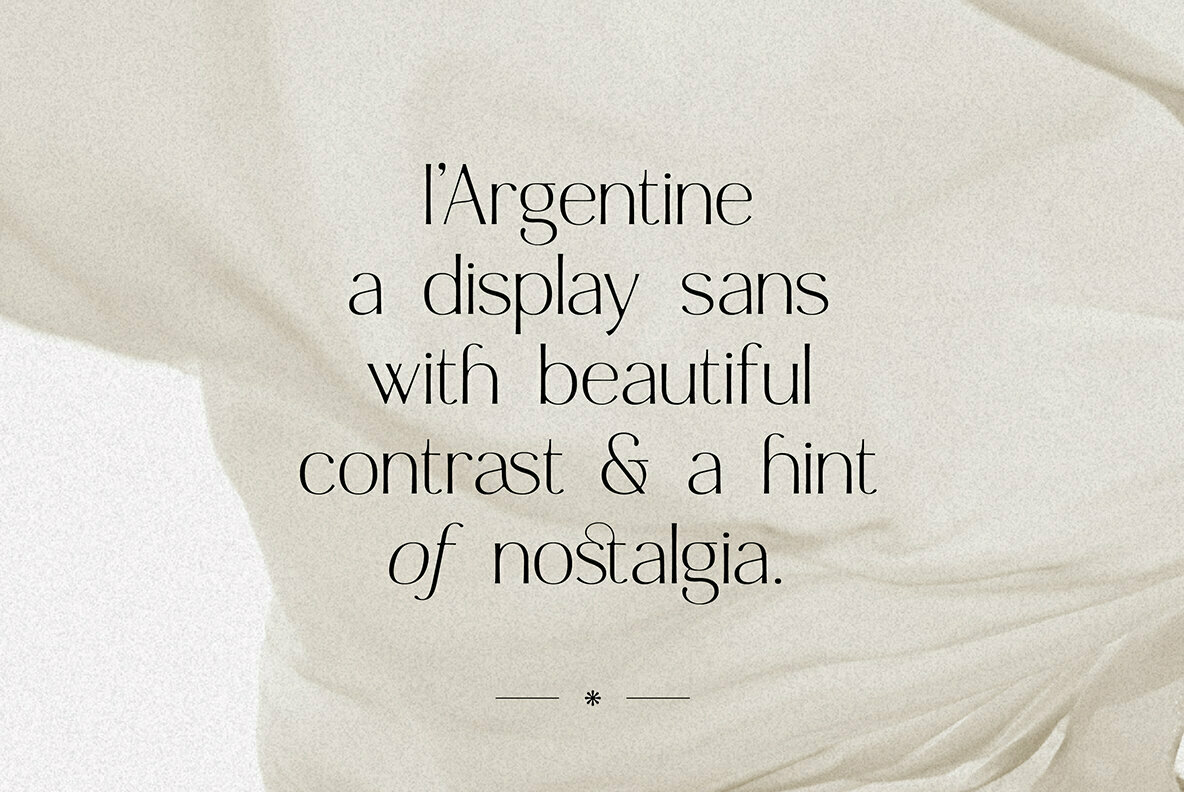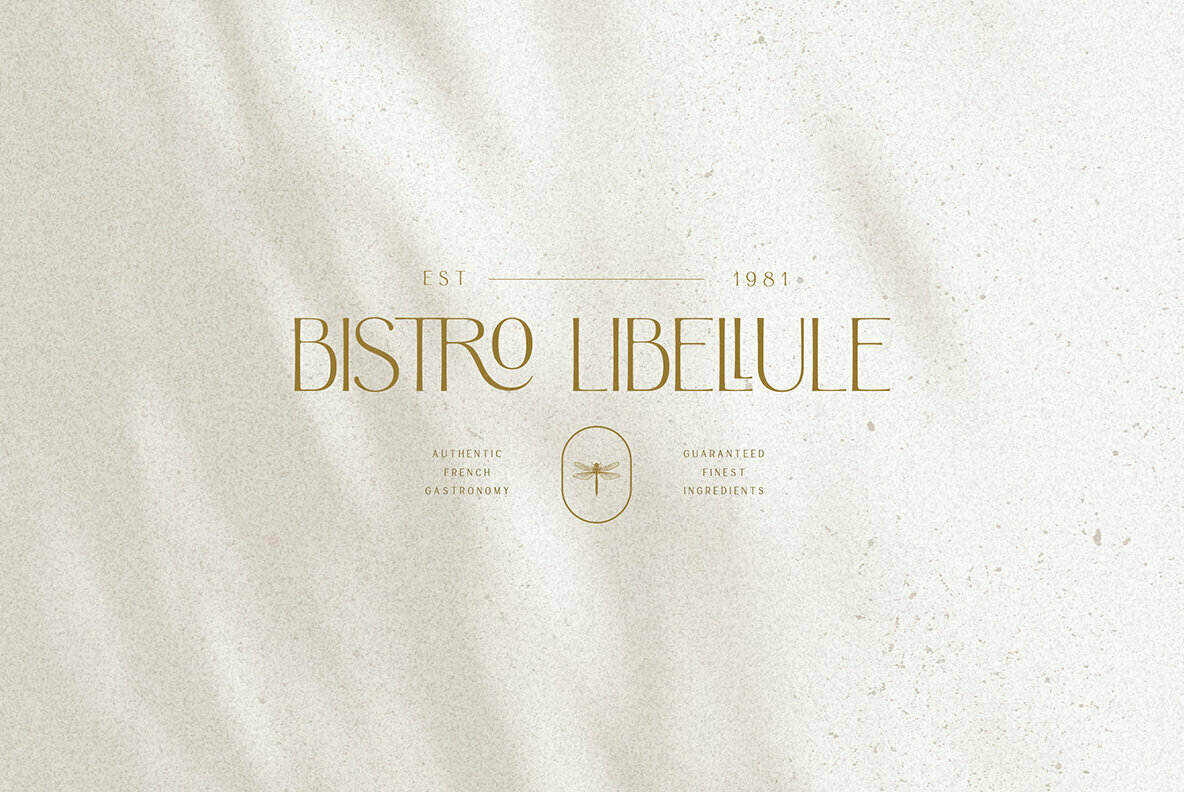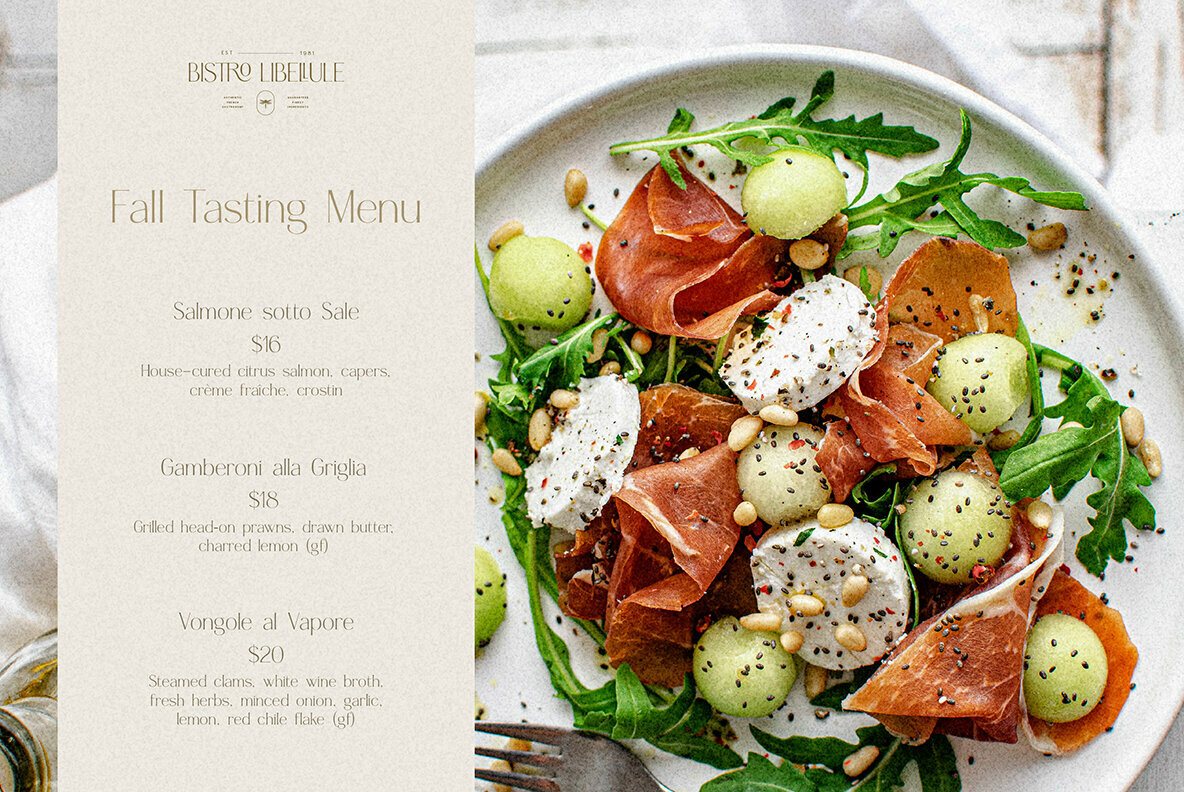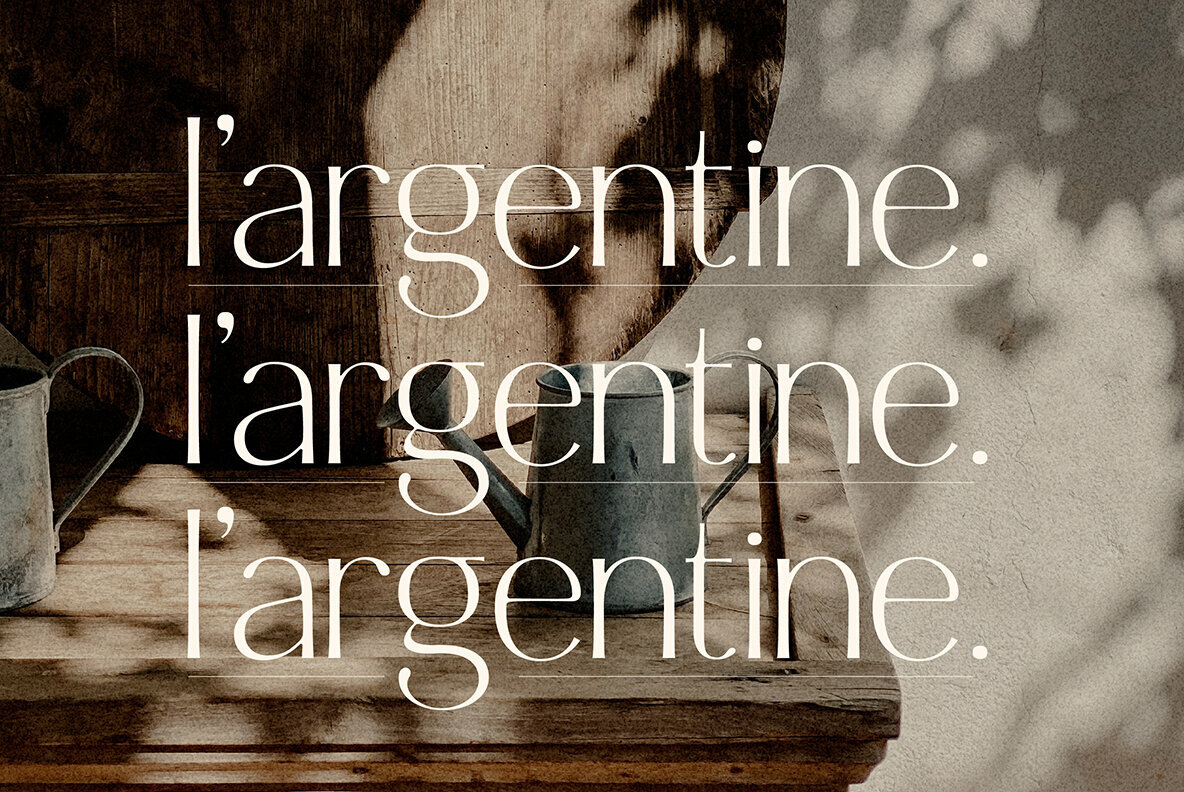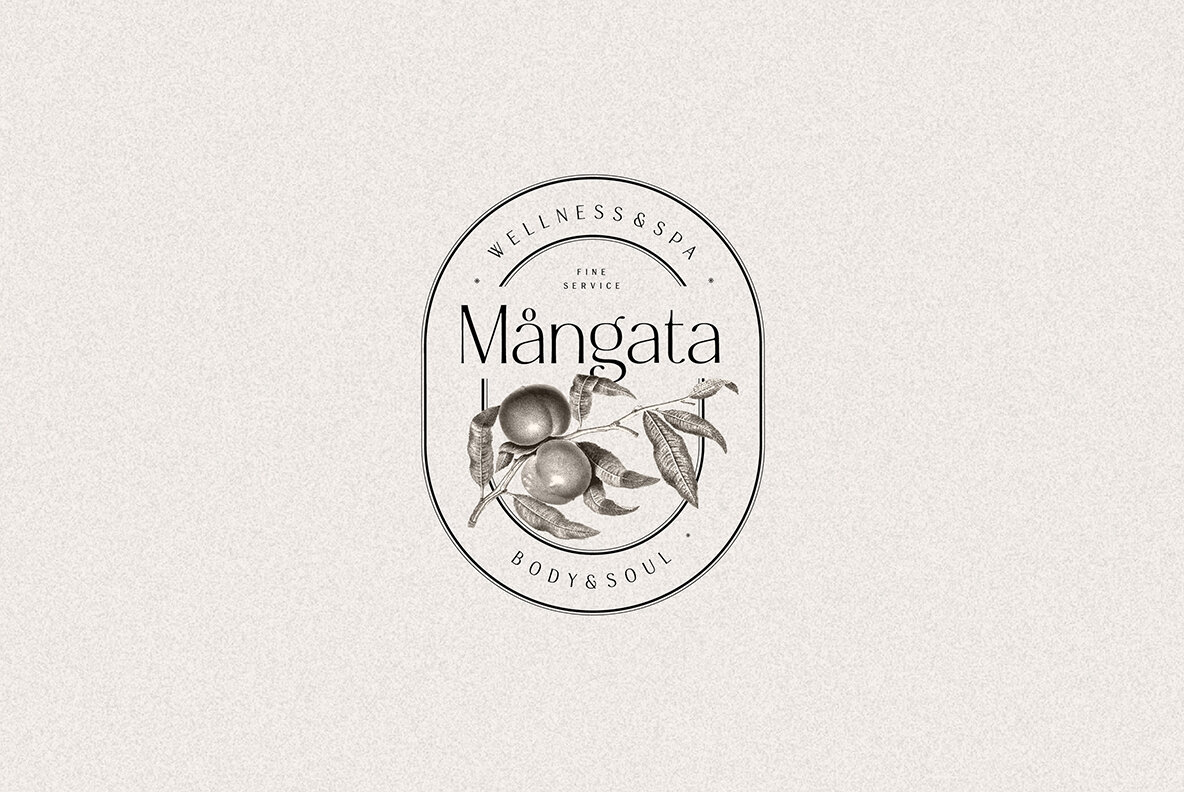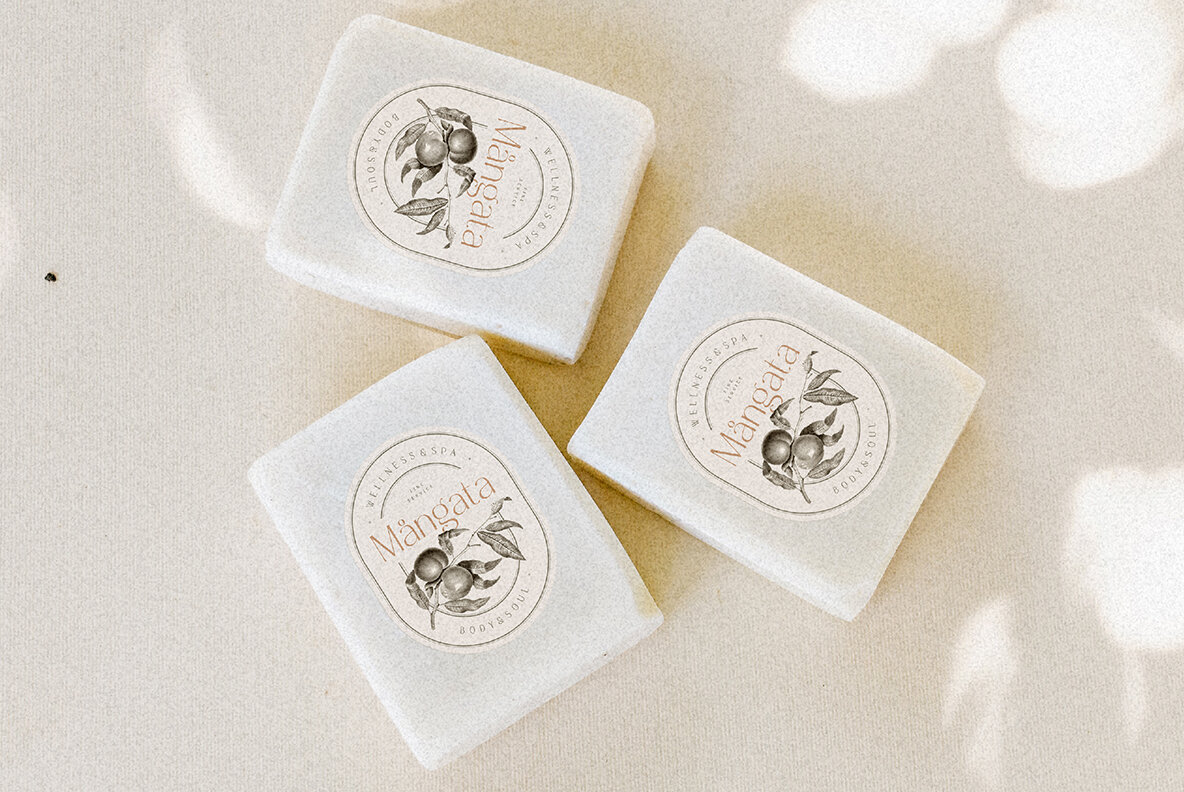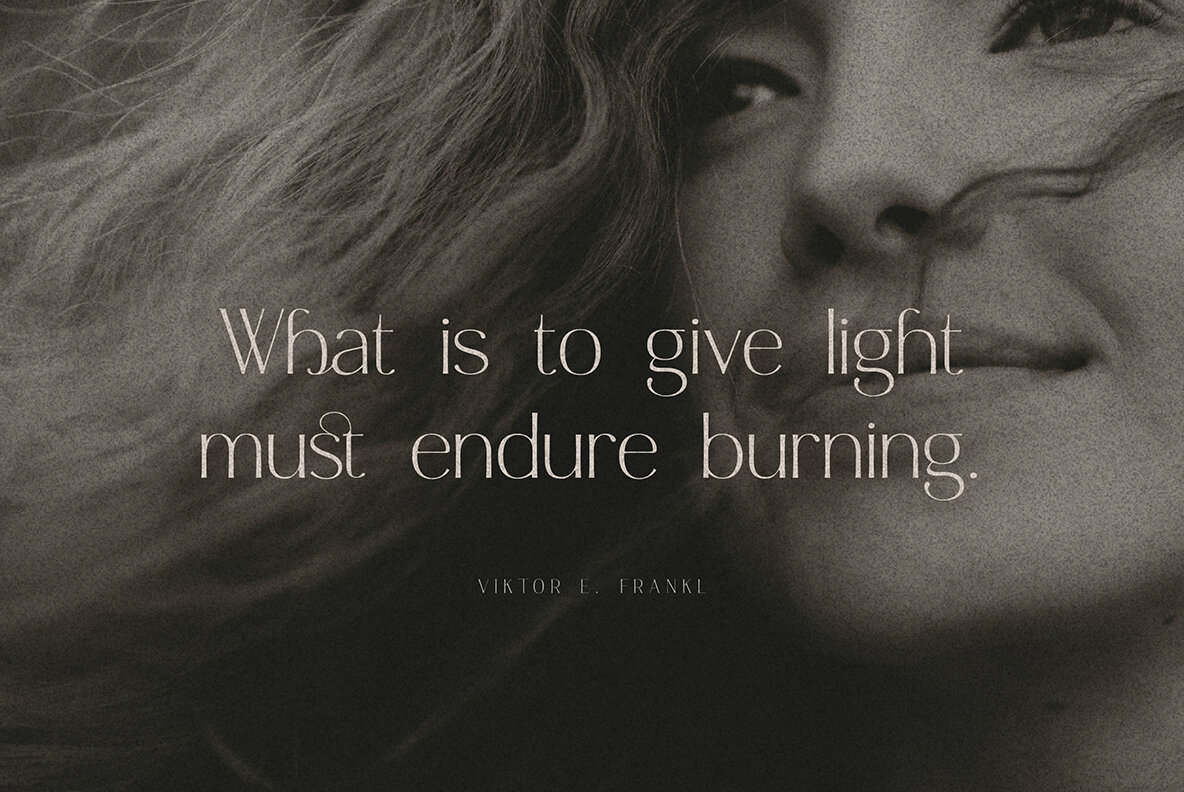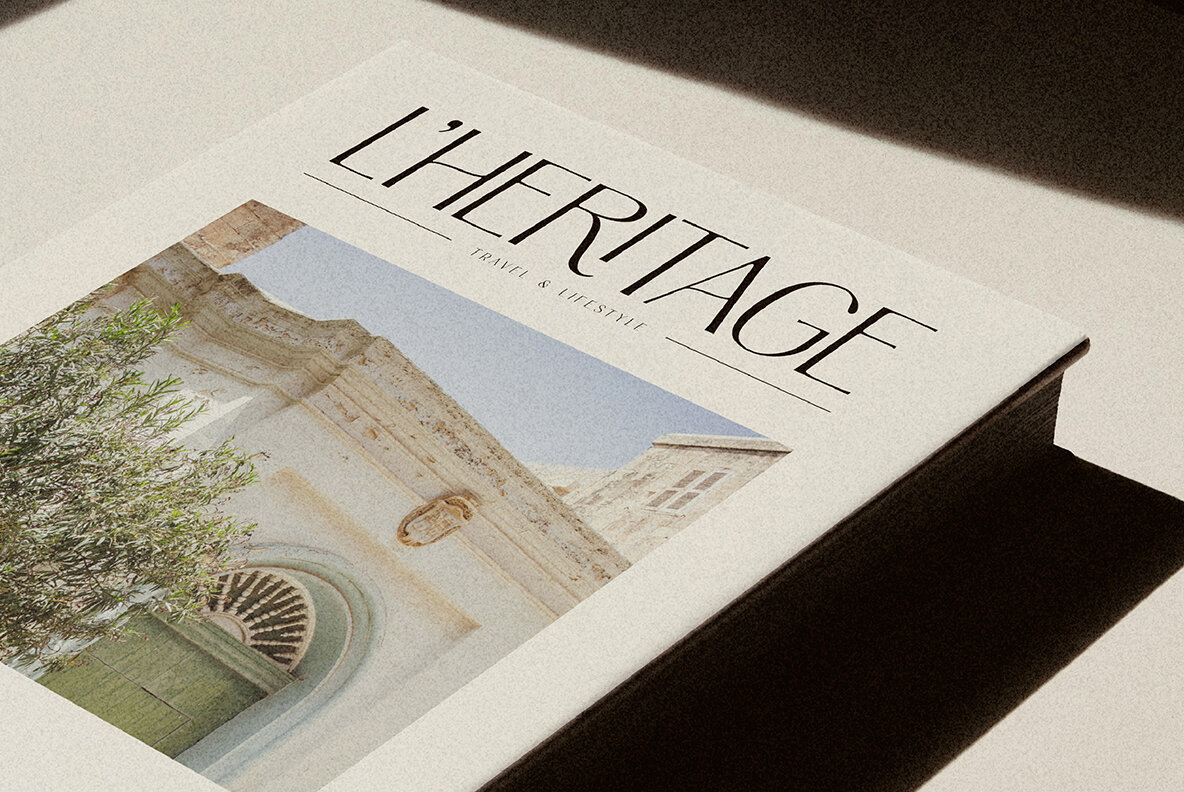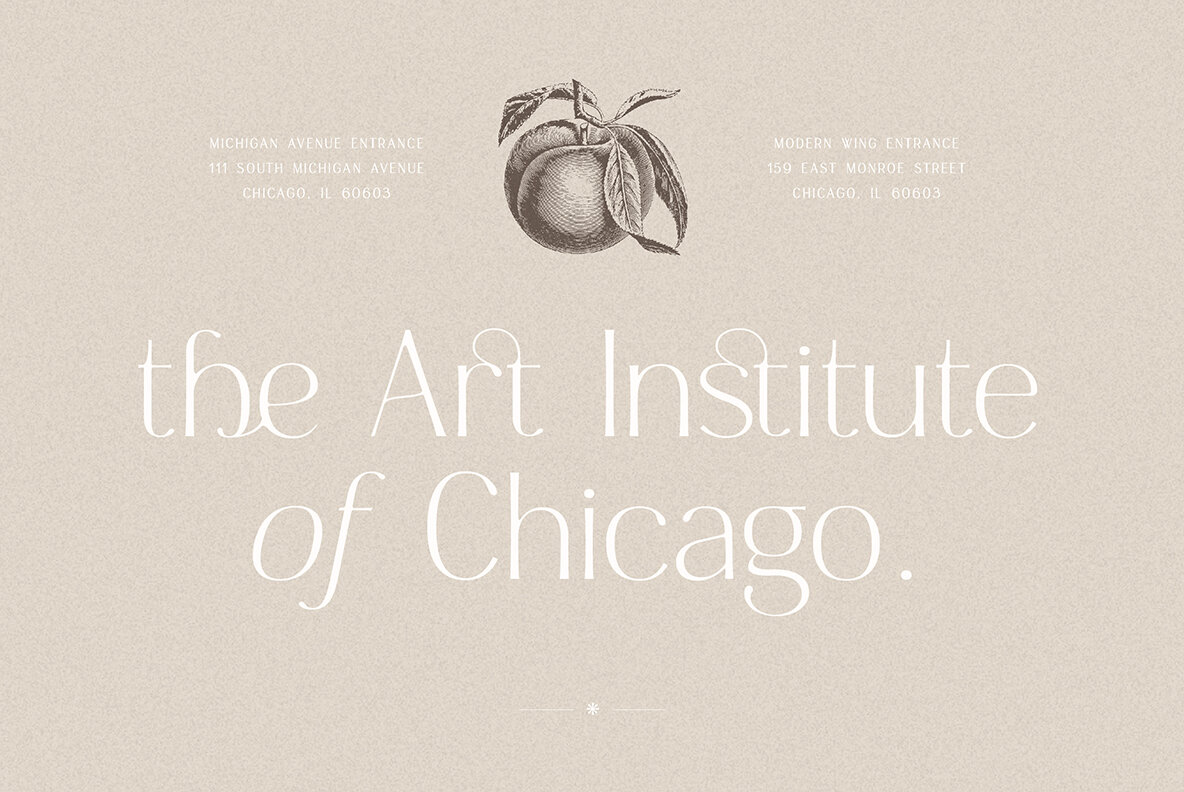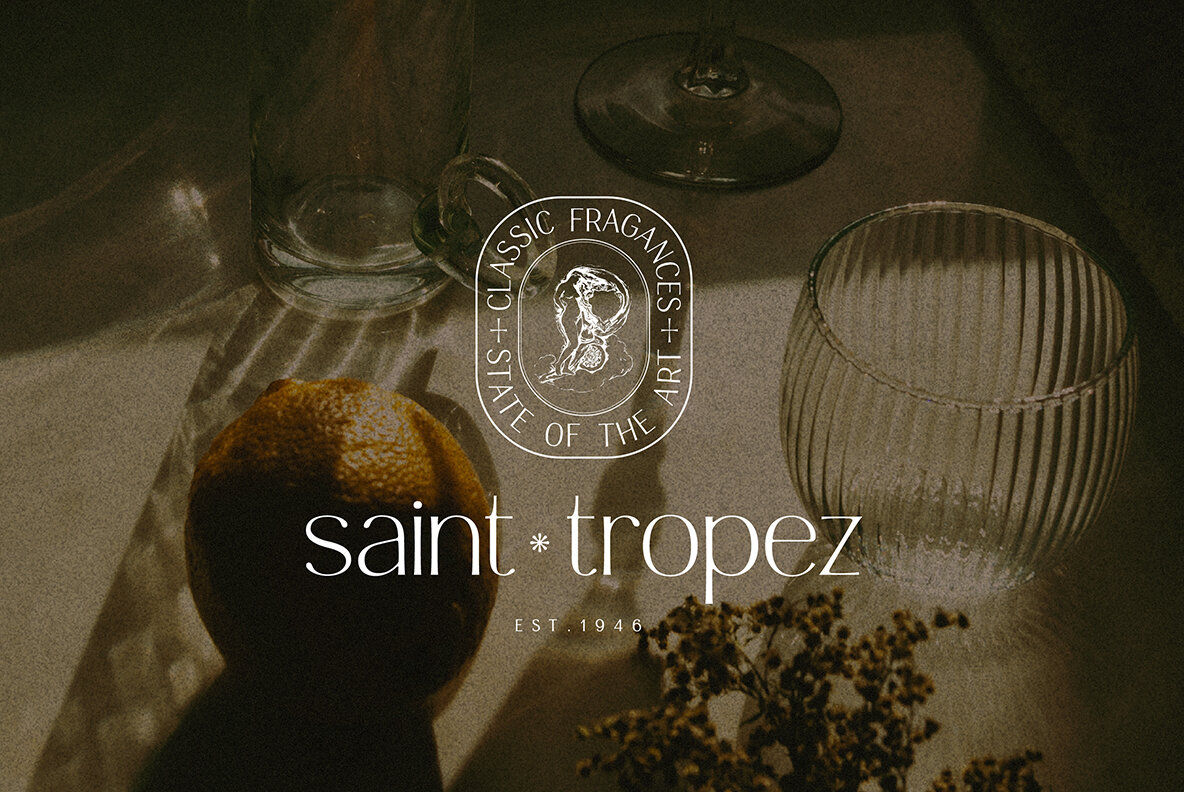
Argentine Font
HV Argentine Regular
HV Argentine Italic
Argentine is a display sans with beautiful contrast & a hint of nostalgia. Specially designed for retro, elegant projects, Argentine is perfectly suitable for creating simple, lifestyle designs such as logos, packaging, editorial, and more. 6 free logo templates